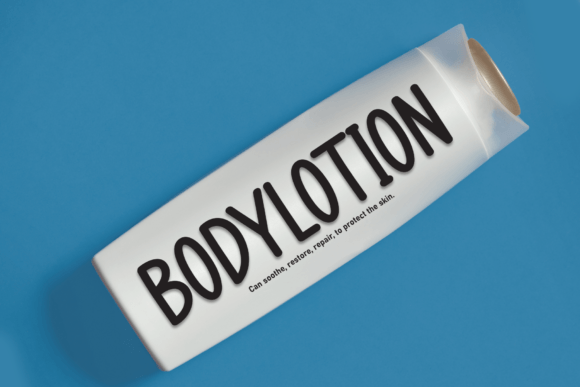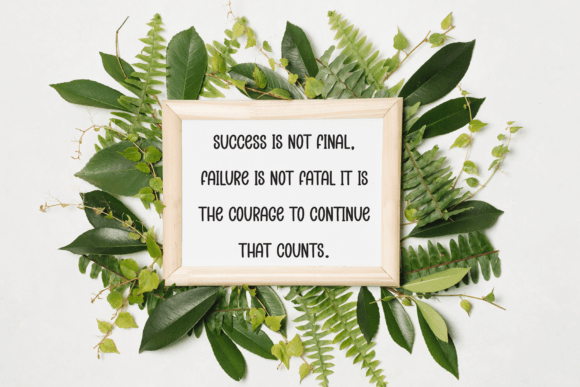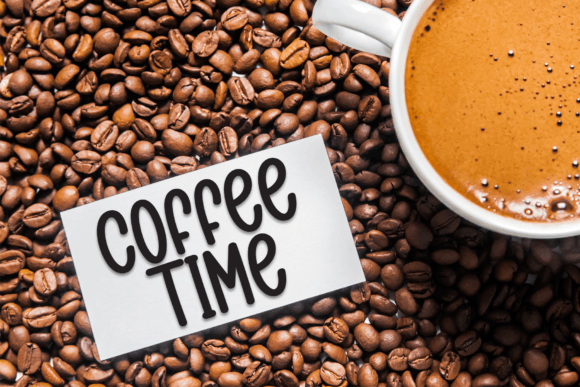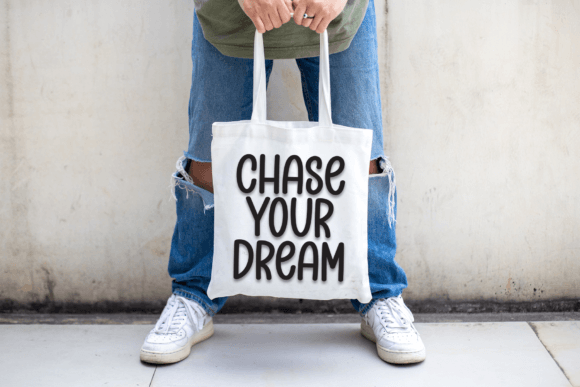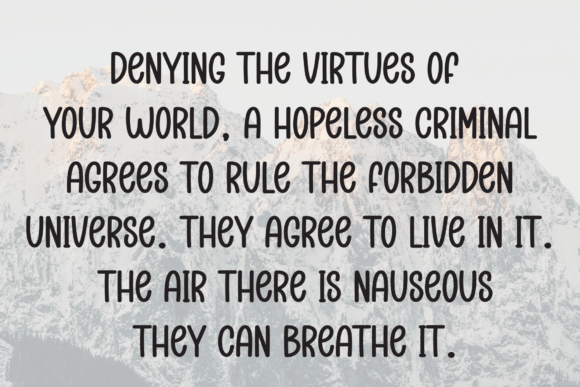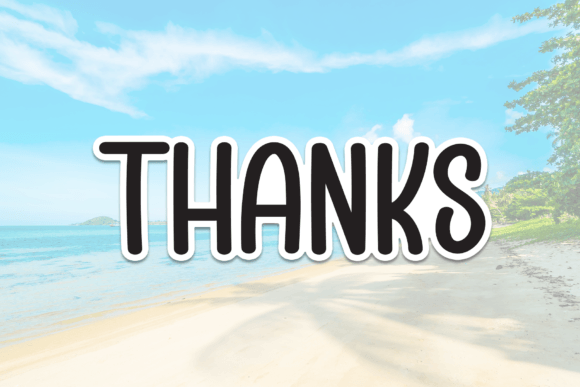
The Perfect Beachy Keen Font: A Deep Dive into Beach Scene
I’ll never forget the time I was working on a beach-themed craft project, and I just couldn’t find the right font to match my design. I wanted something that felt friendly, approachable, and effortlessly cool – you know, like a summer breeze on a hot day. That’s when I stumbled upon Beach Scene, a sweet and friendly handwritten font that instantly captured the laid-back vibe I was going for.
Beach Scene is a natural fit for a wide range of designs, from DIY crafts to professional branding projects. Here’s what I’m obsessed with:
- ✨ Unique, hand-crafted feel that’s perfect for adding personality to your designs
- ✅ Works beautifully with both digital and print projects
- ✅ Supports a wide range of languages
As for quirks, I did notice a few things to keep in mind:
- ⚠️ Some of the letters have a slightly irregular baseline, which can make it tricky to use in certain layouts
- 🤔 The font doesn’t have a huge range of weights, so you might need to get creative with styling
The Story Behind Beach Scene
According to the font’s creators, Beach Scene was inspired by long summer days spent soaking up the sun and playing in the waves. The goal was to craft a font that felt friendly, approachable, and effortlessly cool – perfect for capturing the carefree spirit of the beach.